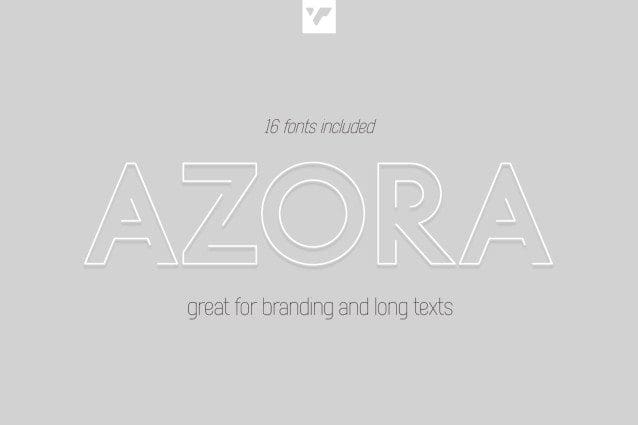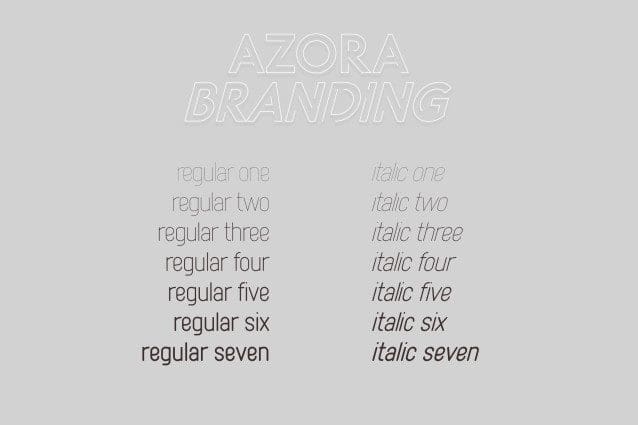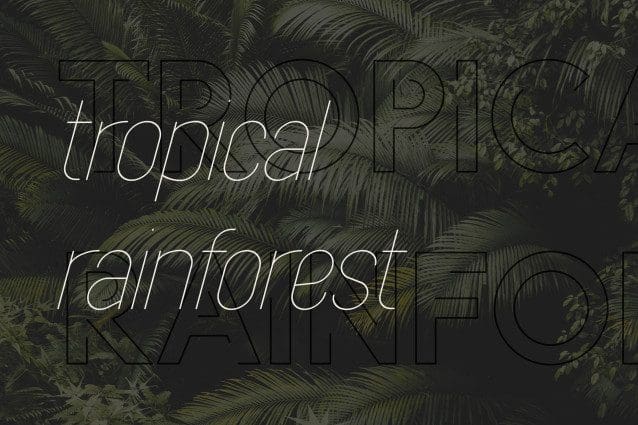
Azora Font
Azora Font – The Futuristic and Casual Typeface with 16 Fonts, 87 Language Support and Ligature Glyphs for Unique Designs. It would be a perfect choice to design posters, affiches, logos, t-shirt and magazine prints, eye-pleasing typographic designs and more.
Designer Name: VPcreativeshop